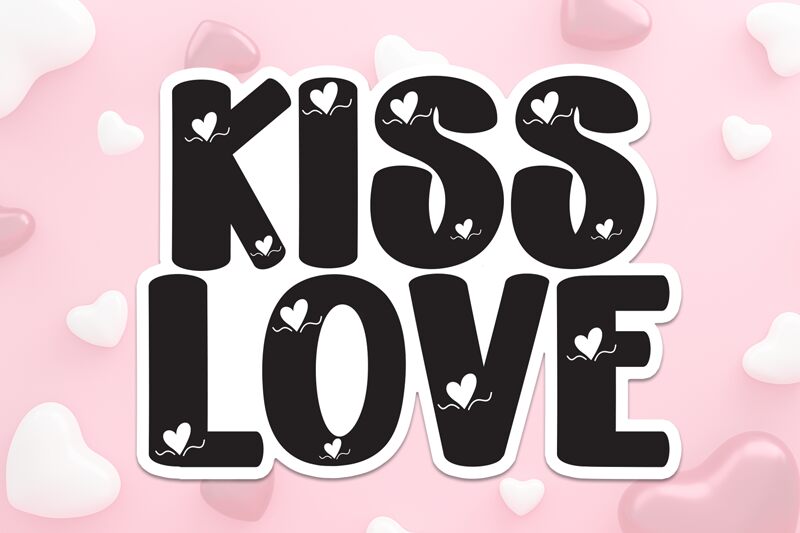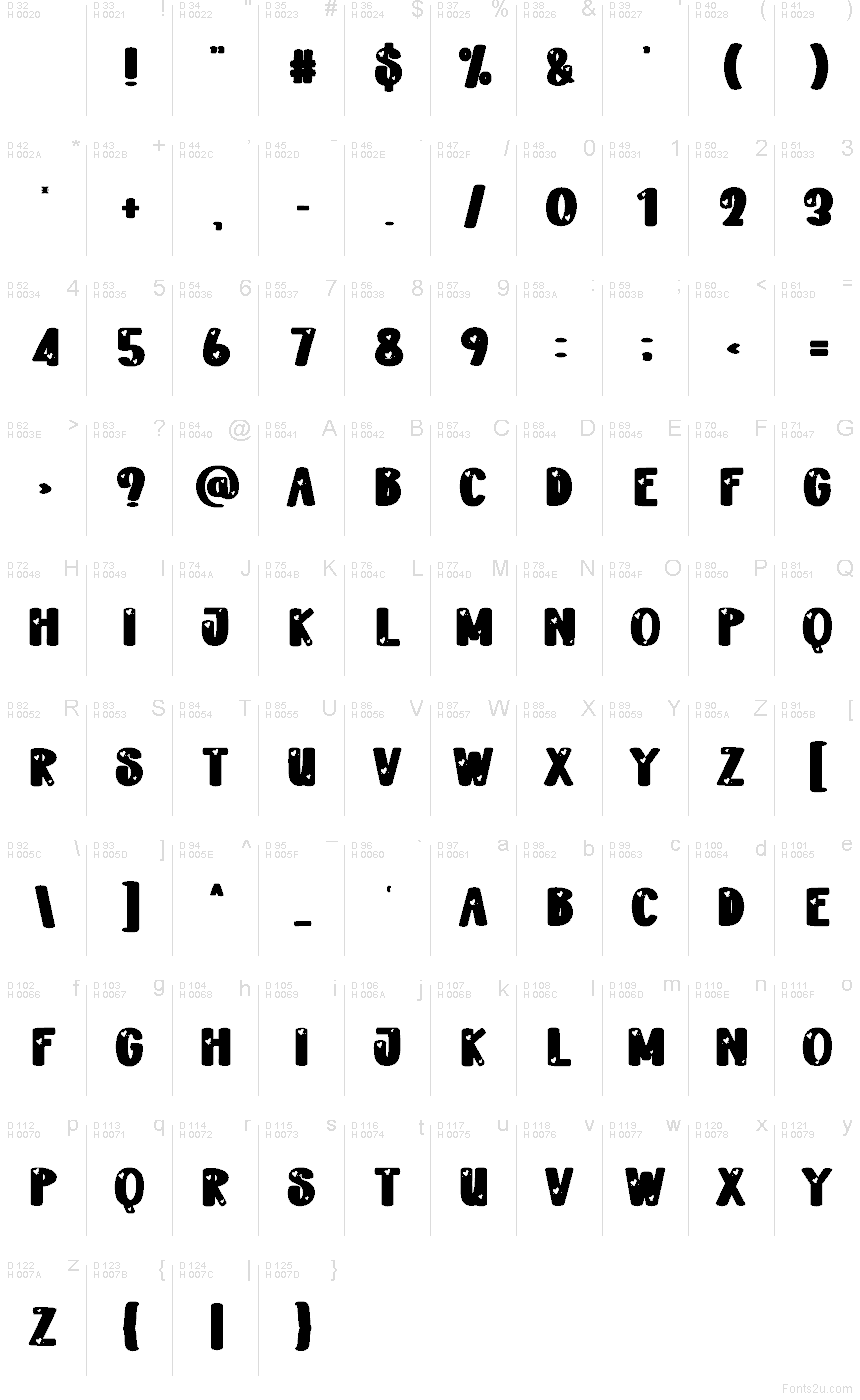
Kiss Love font by Scratchones is a free decorative Valentine typeface that turns every word into a candy-sweet message. Chunky, rounded letters are packed with playful heart cutouts, giving the text a bold, bubbly texture that feels like confetti across the page. The solid black forms and crisp heart shapes read clearly even at smaller sizes, while still feeling fun, flirty, and a little over the top-exactly what love notes should be.
Using Kiss Love, you can instantly dress up Valentine cards, party invitations, romantic posters, social media graphics, stickers, and gift tags. This free font shines on anything related to proposals, anniversaries, and date-night promos where you want to be cute and obvious about it. Pair it with a clean, thin sans serif for body text so the hearts stay center stage, and let Kiss Love handle the noisy, romantic headlines.